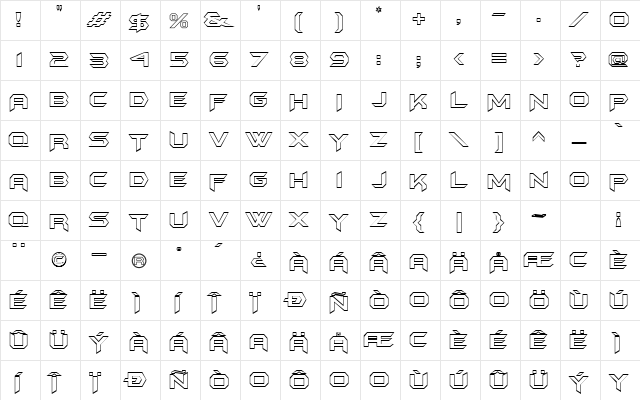
KnightAlternateOutline Regular
Design Context for KnightAlternateOutline Typeface
KnightAlternateOutline brings ornamental detail and strong personality to headlines and identities, where visual impact matters more than quiet functionality.
Font Pairing: Pair with a clean neutral sans-serif for body copy to let KnightAlternateOutline's character lead without overwhelming the composition.
Pro Tip: Treat KnightAlternateOutline as the centrepiece of your typographic hierarchy. One strong heading set in a decorative face can carry an entire layout.